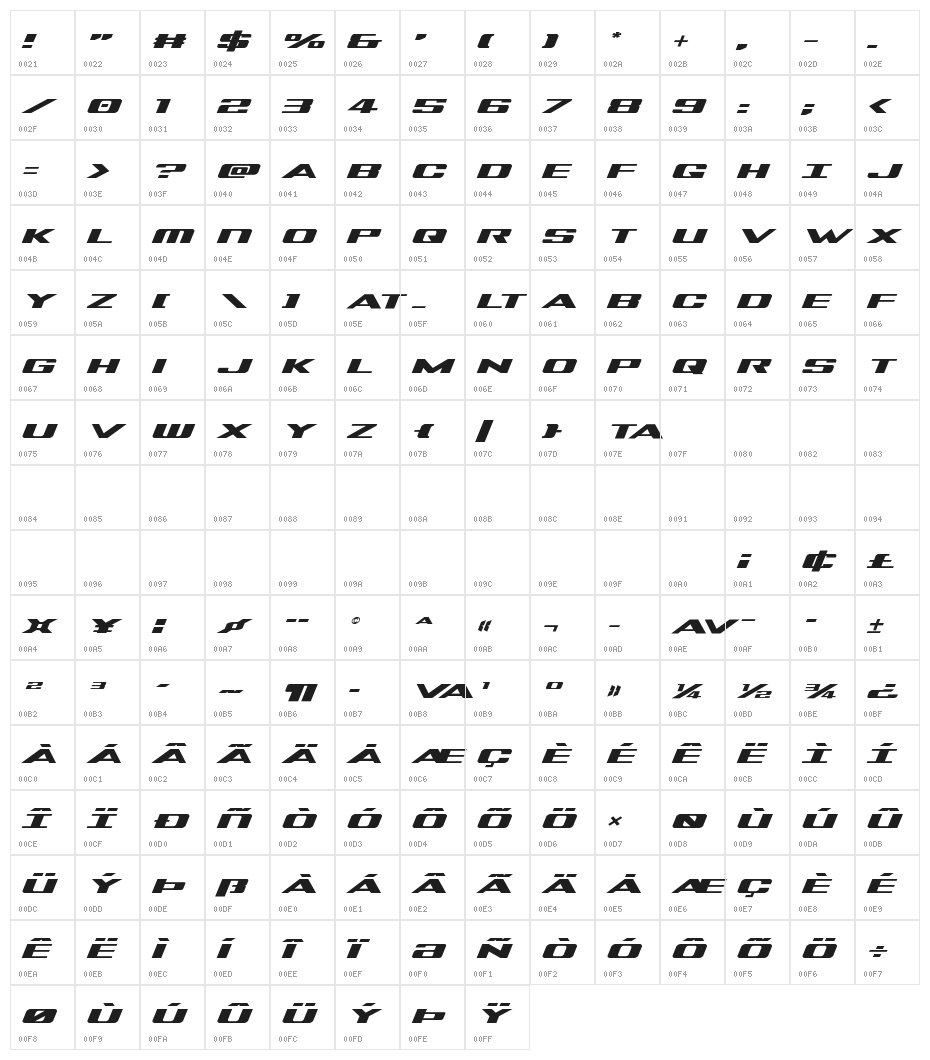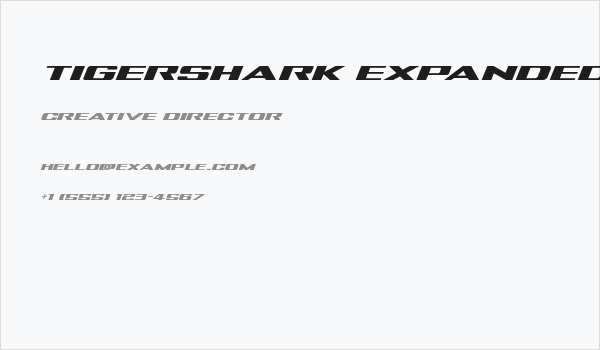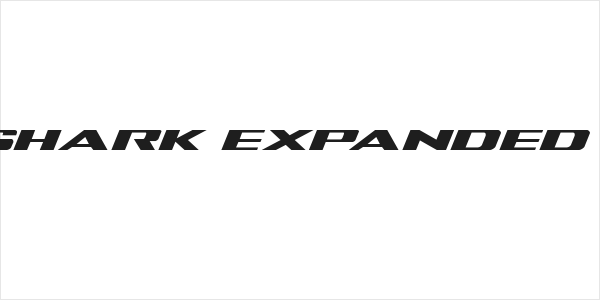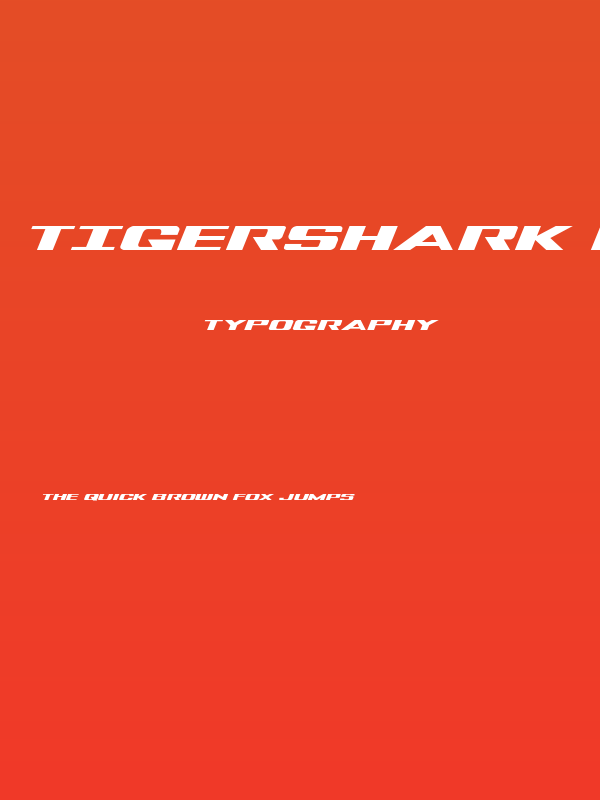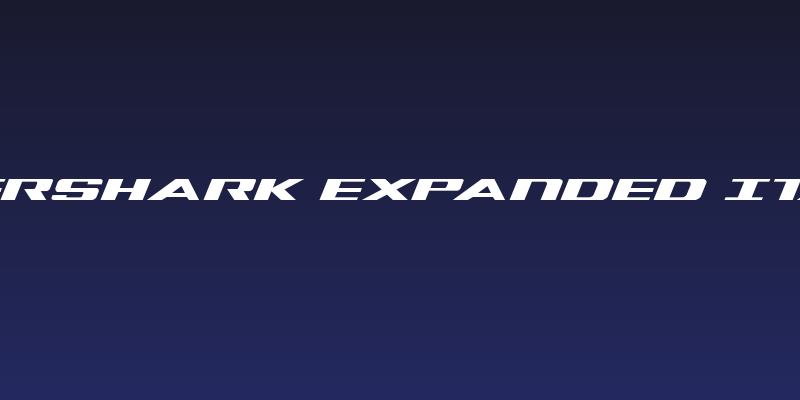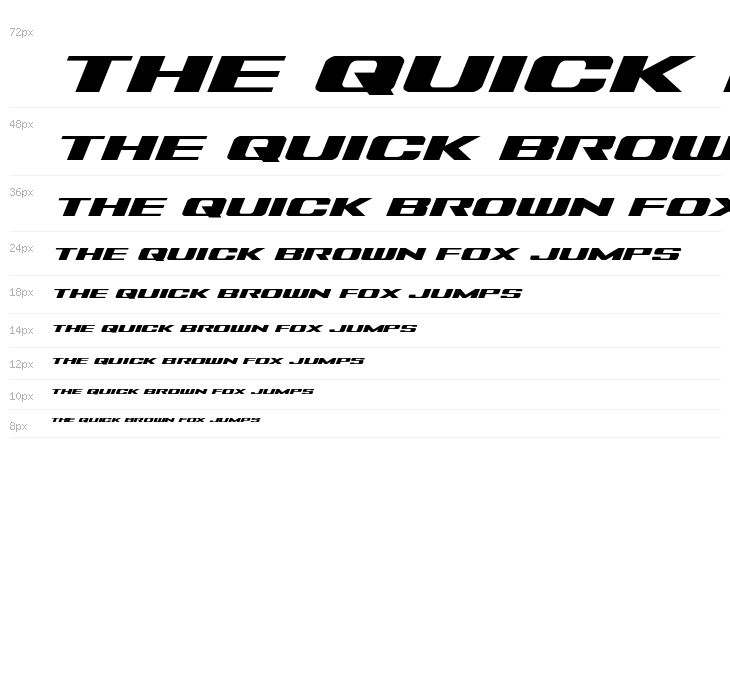
Tigershark Expanded Italic Font
Tigershark Expanded Italic Description
This font features a bold and dynamic style with an italic slant, giving it a sense of motion and energy. The characters are expanded, providing a wide stance that enhances readability while maintaining a strong visual impact. The design is sleek and modern, with sharp angles and clean lines that convey a sense of speed and precision. This font is particularly suitable for projects that require a futuristic or sporty aesthetic, making it ideal for branding, advertising, and digital media. The consistent stroke width throughout the characters ensures a uniform appearance, while the expanded width allows for clear legibility even at smaller sizes.
| Proposed Projects | Ideal for sports branding, automotive advertising, digital media, and futuristic designs. |